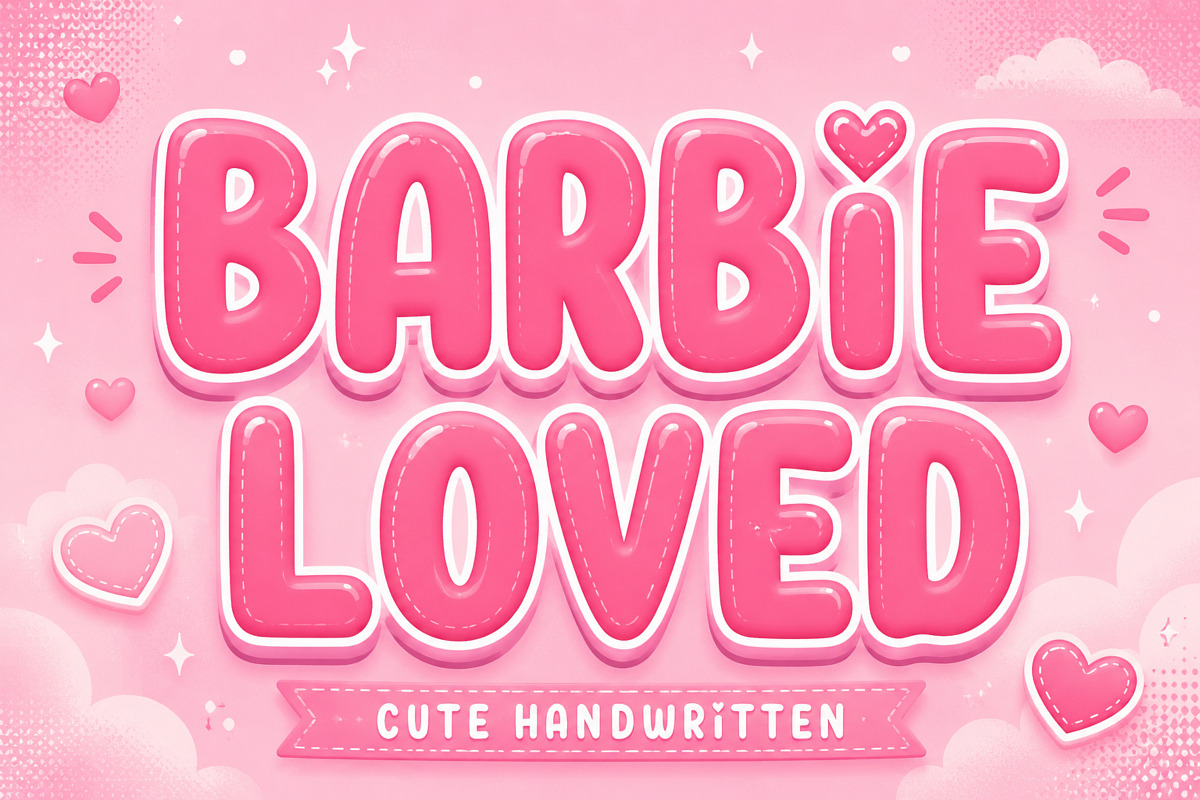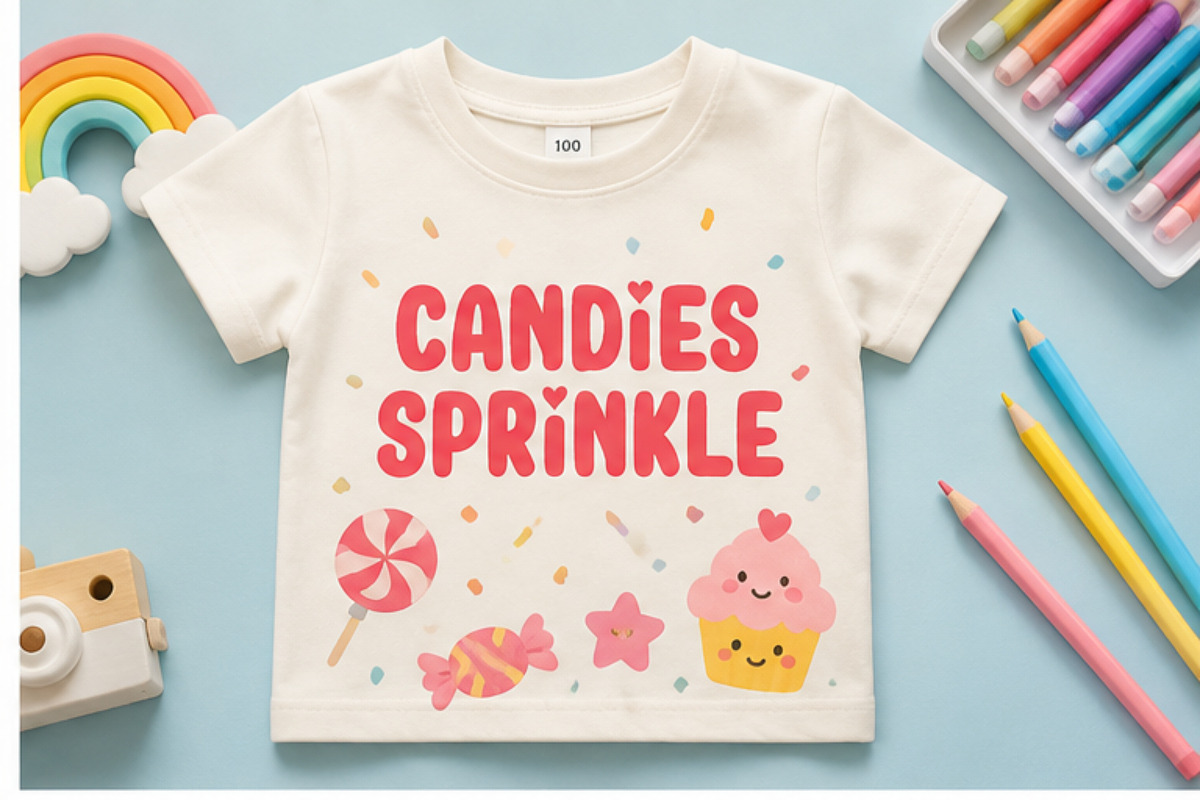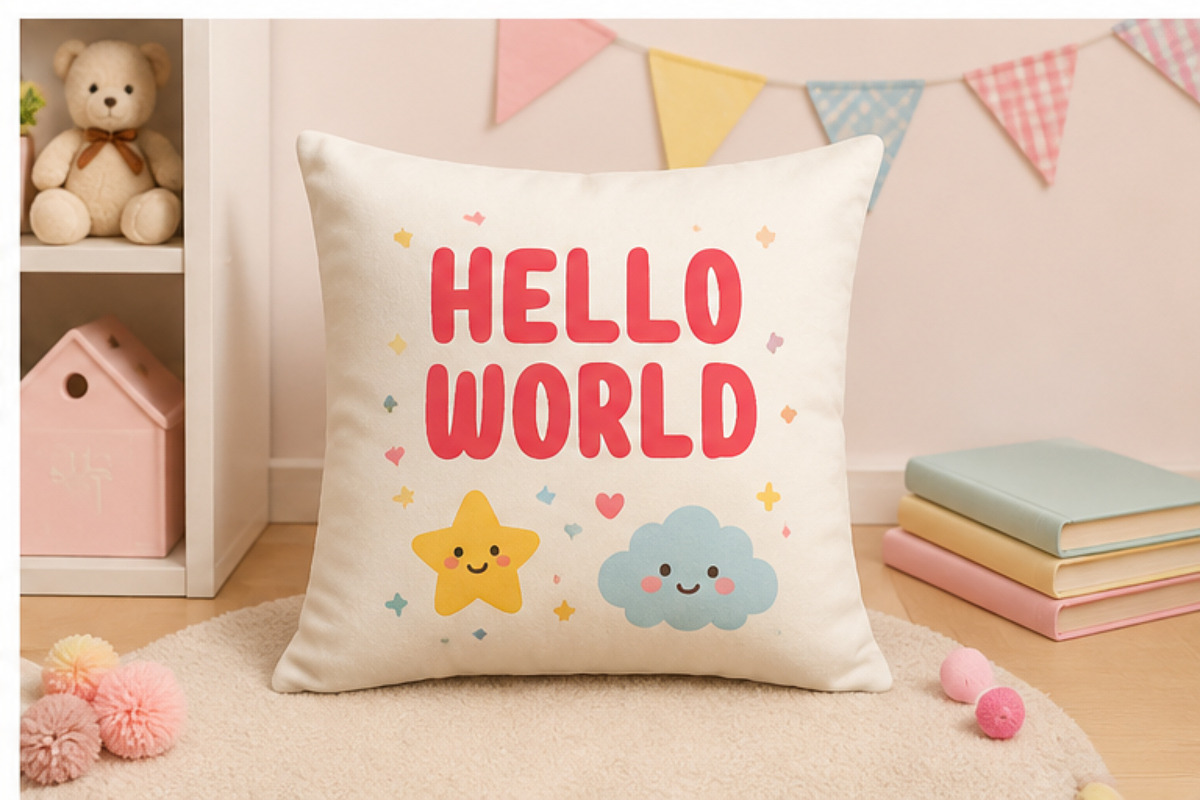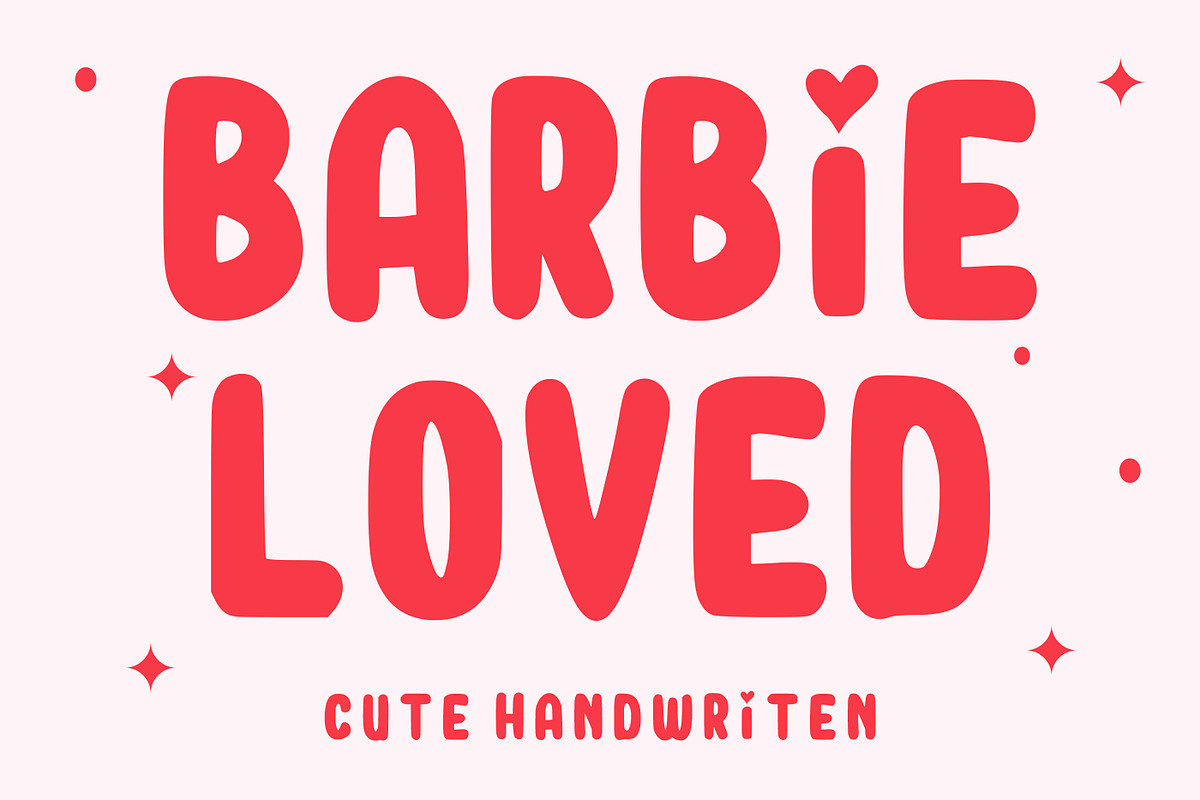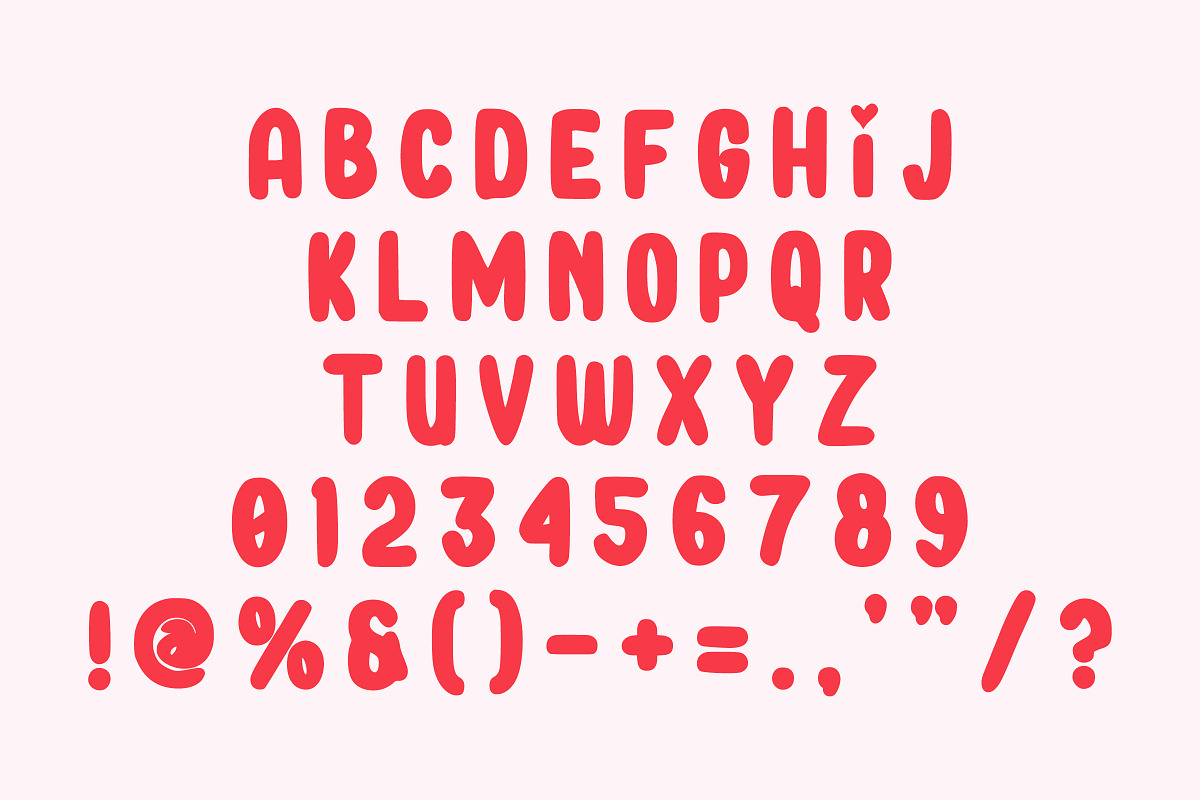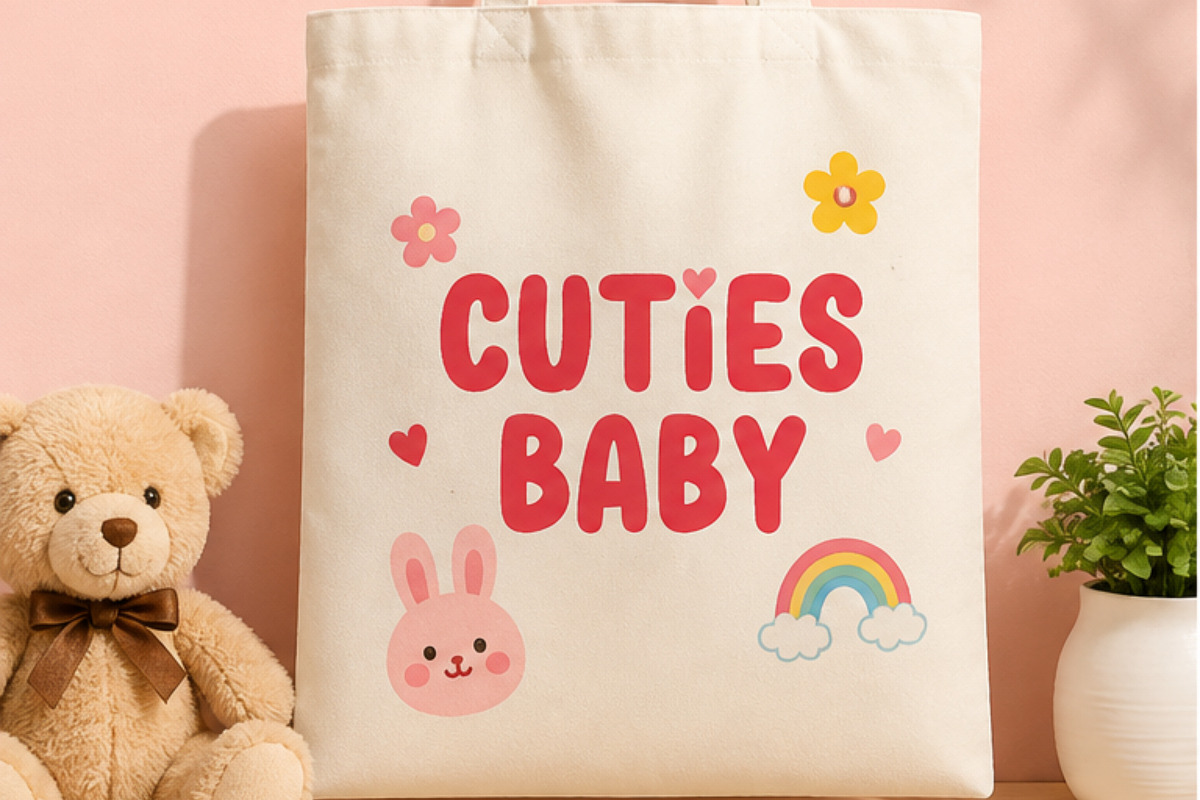
Barbie Loved
Barbie Loved Font is a cute, playful, and feminine display font designed to bring a fun and stylish touch to your creative projects. With its charming character and trendy aesthetic, this font is perfect for designs that need a sweet, fashionable, and eye-catching look.
Whether you’re creating a girly brand, birthday design, fashion artwork, kids’ products, or trendy merchandise, Barbie Loved adds a lovable and stylish personality to every project.